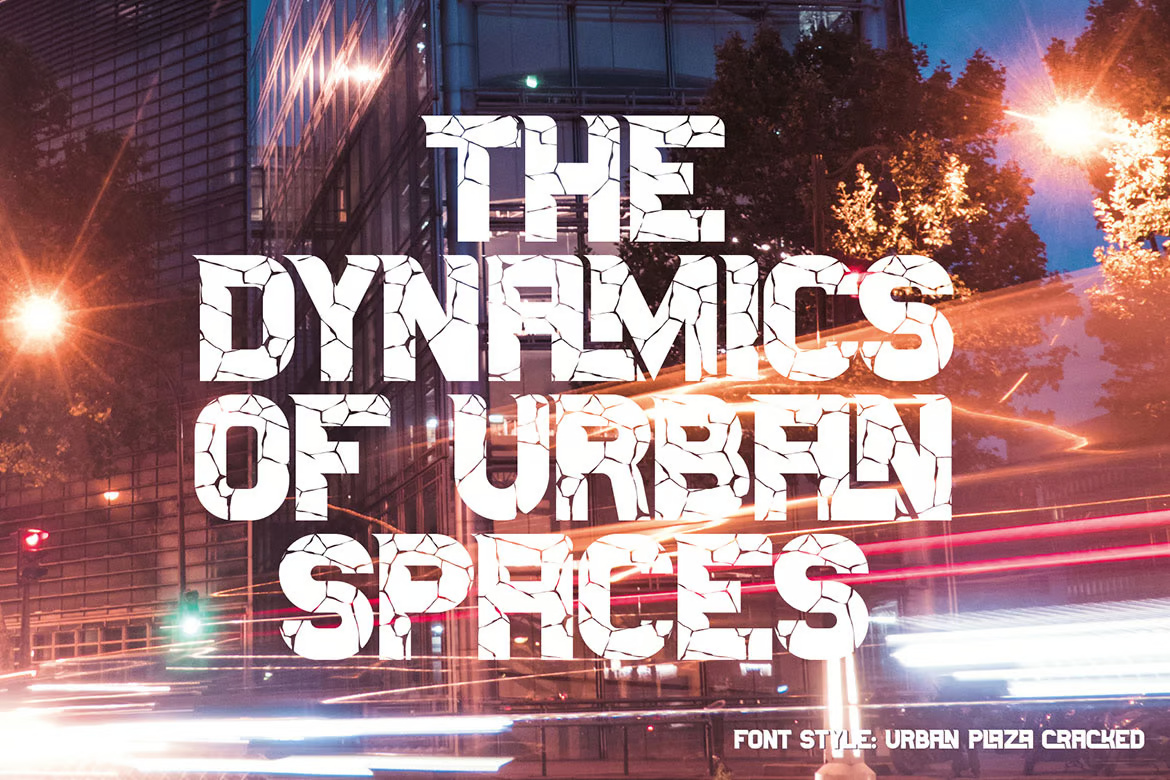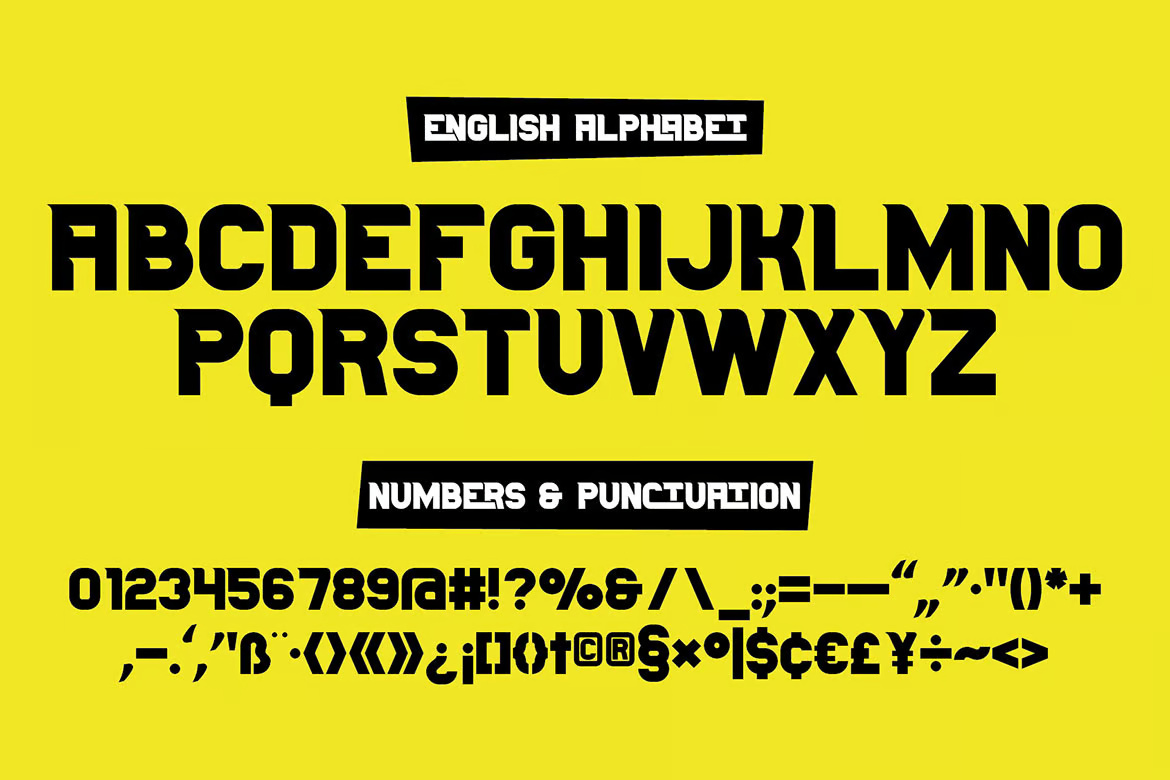
Urban Plaza Display Font
Urban Plaza is a unique display font with a bold, sharp, and urban aesthetic. Featuring cracked textures, striking ligatures, and monogram-style elements, this sans-serif typeface is perfect for logos, branding, and design projects that demand a strong, edgy look. It includes multilingual support, creative ligatures, and a special cracked version for added visual impact.
Urban Plaza Sans-Serif Display Font
Urban Plaza Display Font